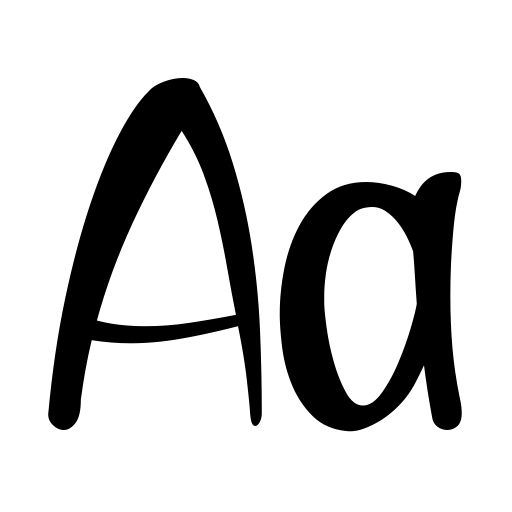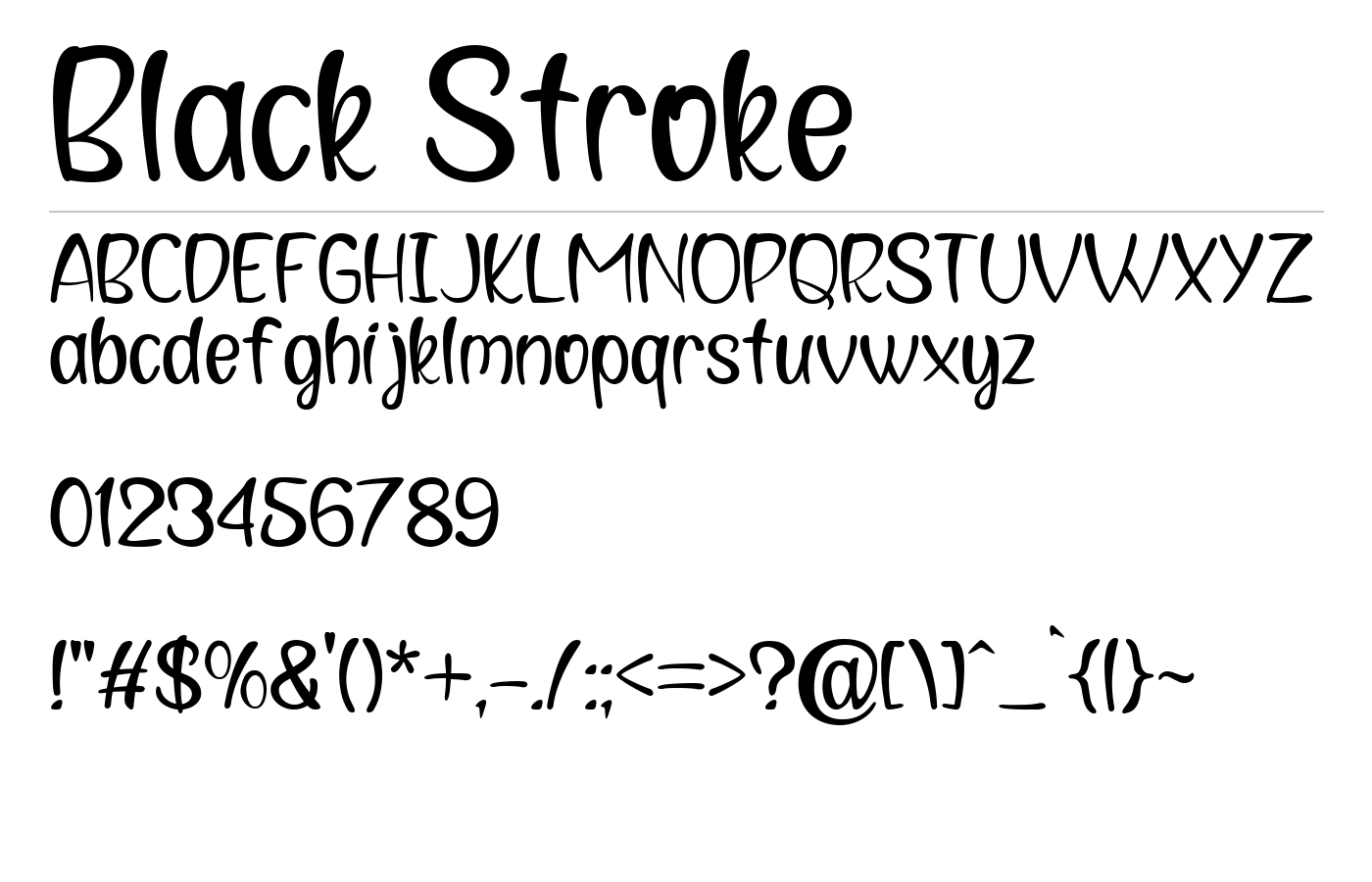
Black Stroke is a playful and casual handwritten sans serif font with a lively, rounded stroke that gives it a friendly and approachable character. Its irregular letter shapes and moderate x-height make it perfect for creative projects, informal branding, and engaging headlines that require a personal touch. This font works well where a relaxed, youthful vibe is desired, such as in children’s books, social media graphics, and casual invitations.
Black Stroke Font
About Black Stroke Font
| Font family | Black Stroke Font |
| Designer | Cris Designs |